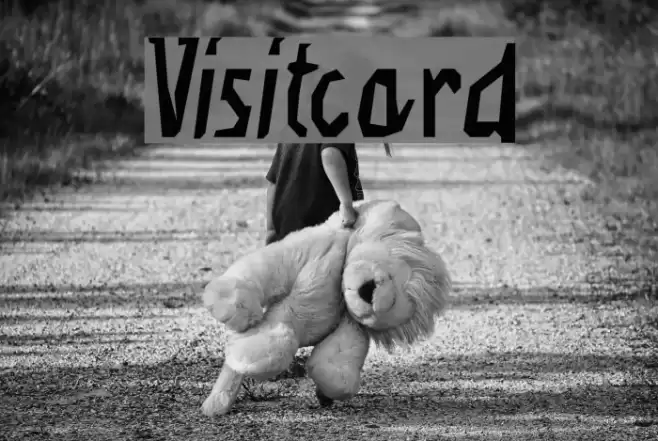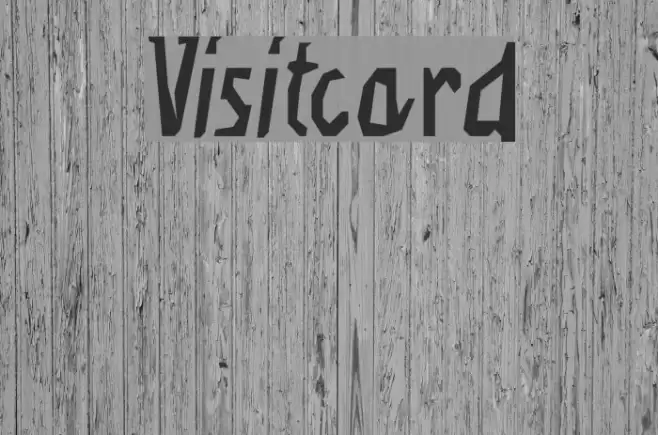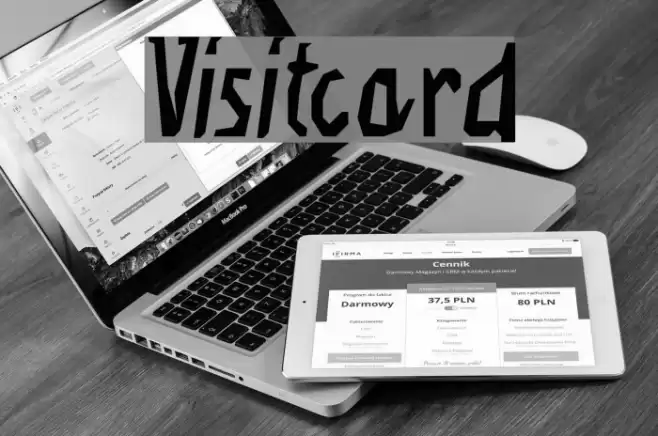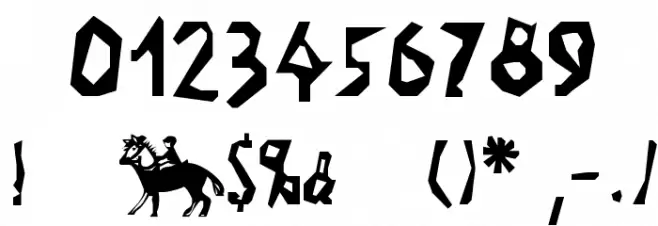
Visitcard Font
Visitcard Description
This font features a bold and angular design, characterized by its sharp edges and geometric shapes. The uppercase letters exhibit a strong presence with their jagged forms, while the lowercase letters maintain a consistent angular style. Numbers and special characters follow the same bold and edgy aesthetic, making the font highly distinctive. The overall appearance is reminiscent of a modern, abstract art style, with a touch of rebellious flair. This font is ideal for projects that require a striking and unconventional look.
Bold, angular font with a modern, edgy style from Uncategorized fonts.
- Proposed Projects: Ideal for album covers, posters, branding for edgy or modern products, and artistic projects requiring a bold statement.
- Overall Style: Modern, Decorative